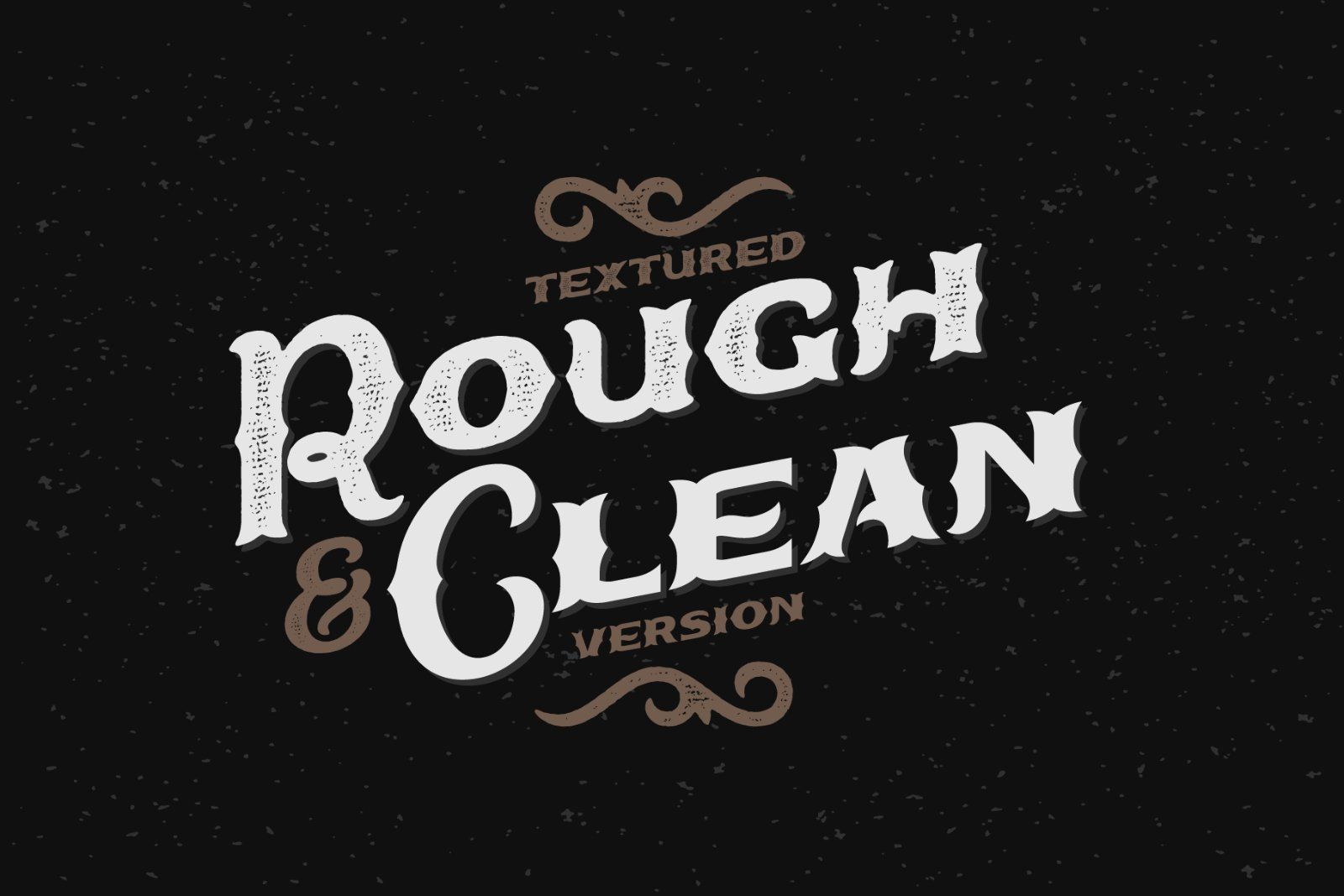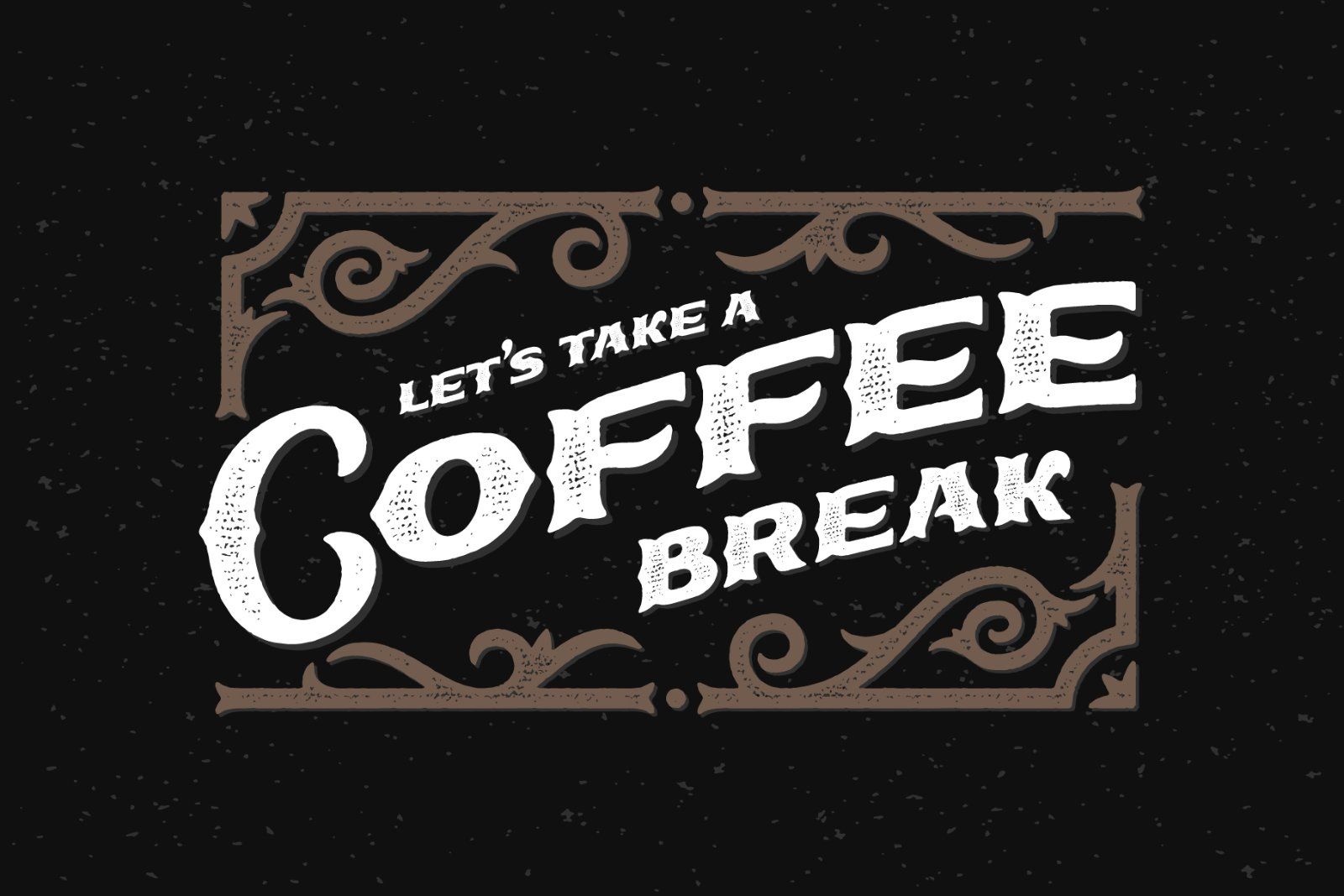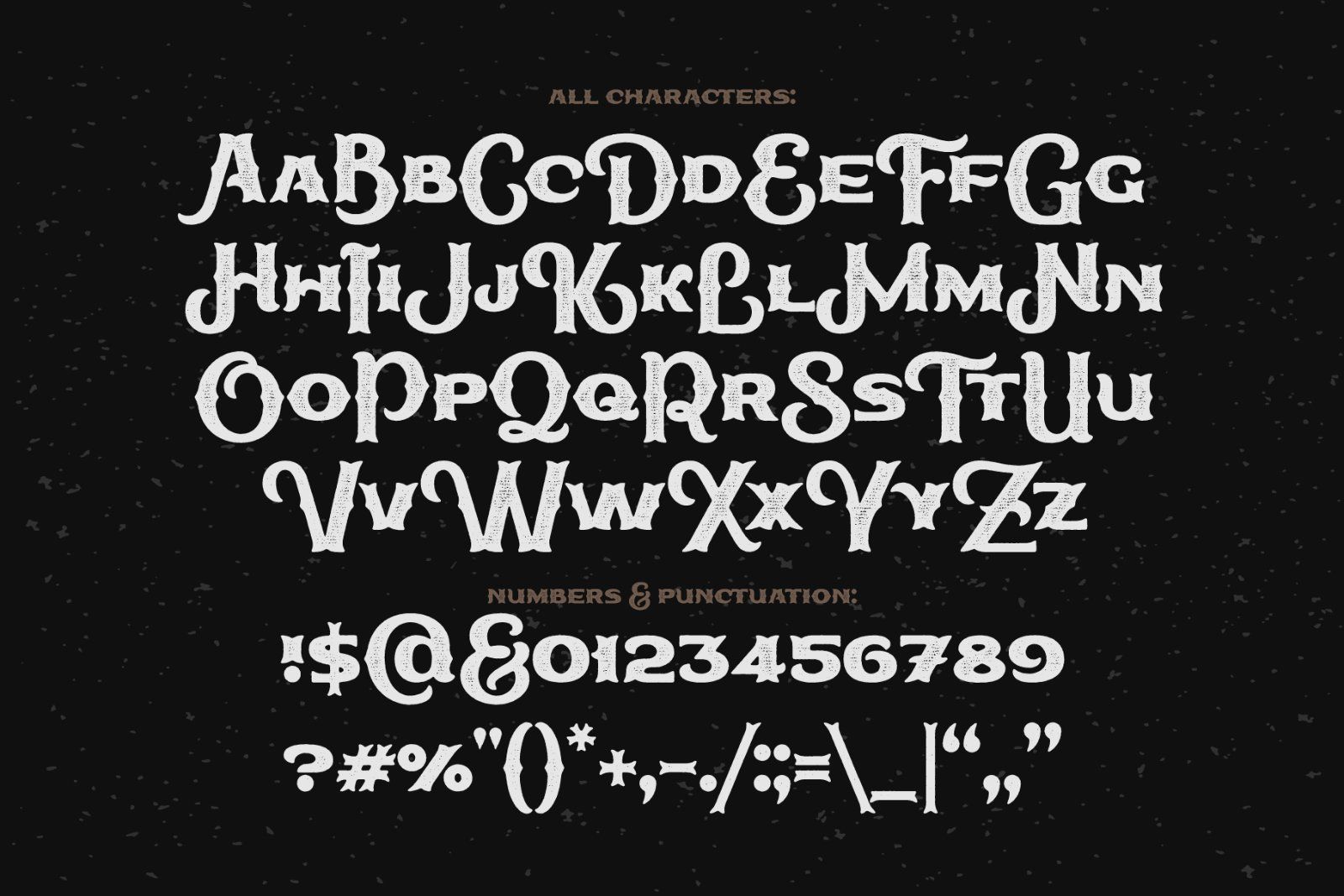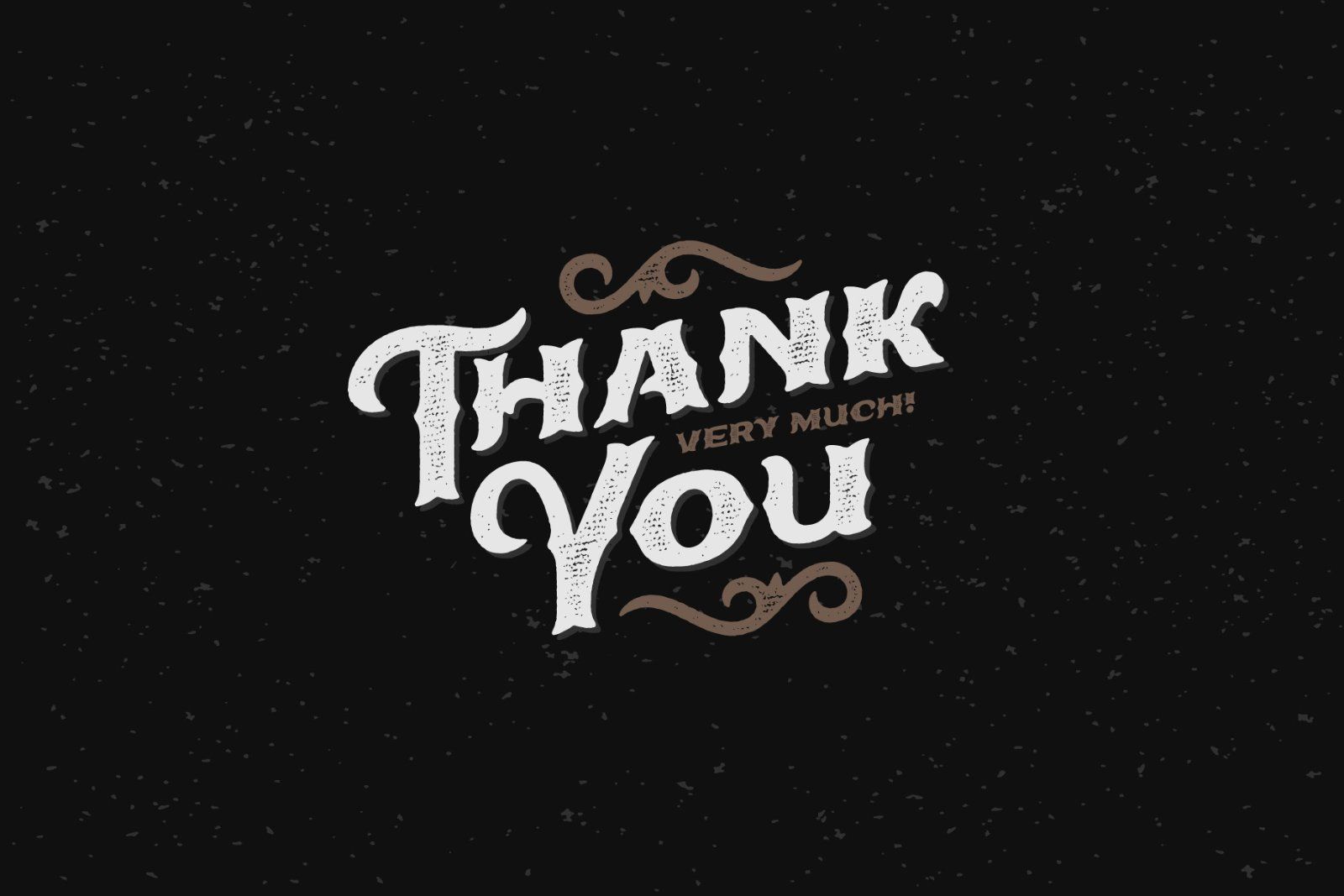
Hello! Presenting a vintage steam-punk look font named "True Black". It has clean and textured rough versions. Also you will get a vector bonus with decorative ornate. Inside you will find a vector poster with lettering composition "Let's take a coffee break".